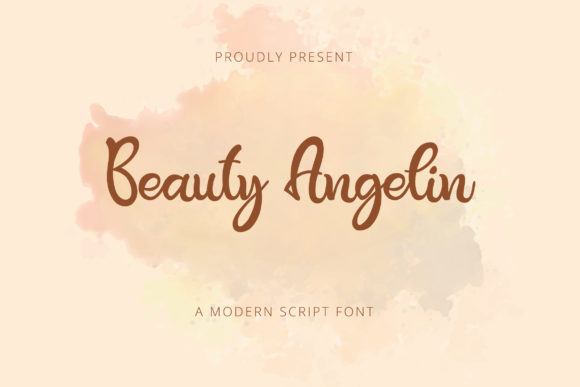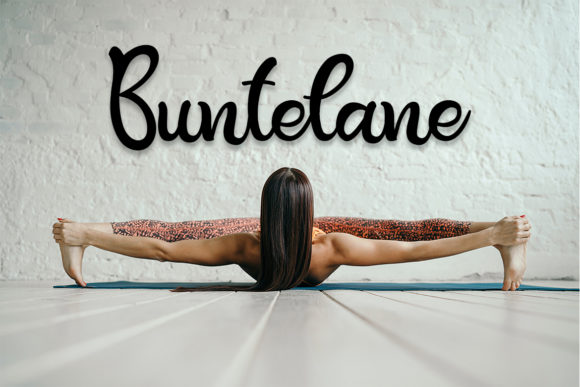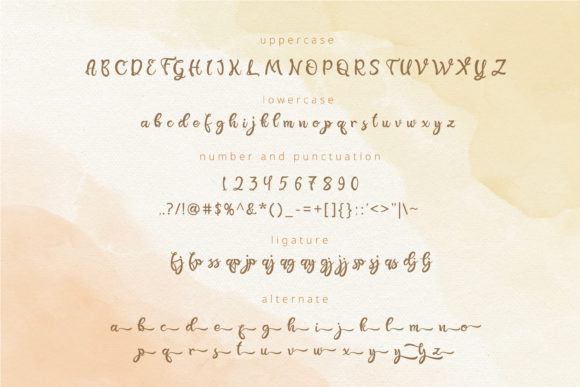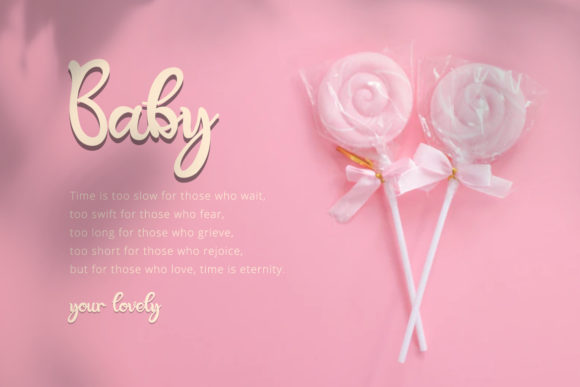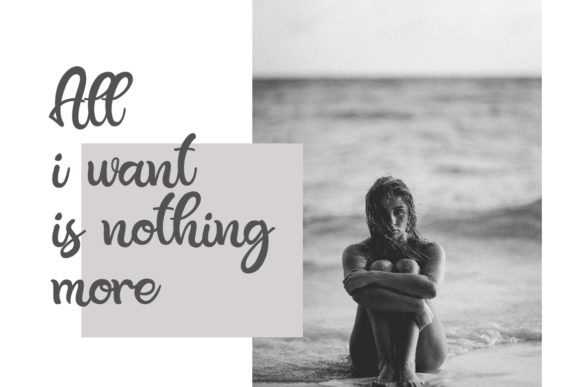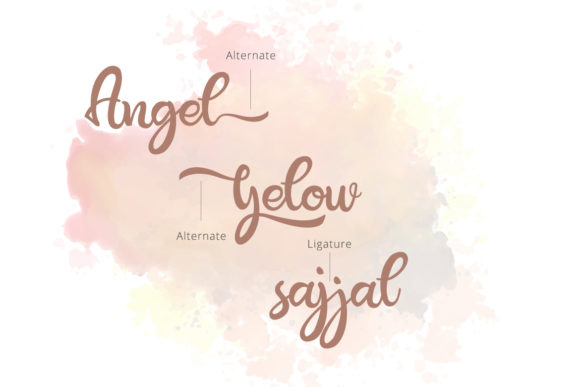
About Beauty Angelin Font
Beauty Angelin is a meticulously handcrafted script font that exudes elegance and sophistication. With its graceful and flowing strokes, this font is a perfect choice for a wide range of graphic design projects, adding a touch of beauty and charm to any visual composition.
One of the main strengths of Beauty Angelin is its versatility. Whether you’re working on branding materials, t-shirts, prints, business cards, logos, posters, photography, or quotes, this font seamlessly adapts to various contexts, making it a reliable and go-to choice for any graphic design need.
The handcrafted nature of Beauty Angelin gives it a personal and artisanal touch, setting it apart from standard fonts and lending a unique character to your designs. Each letter is carefully crafted to maintain a harmonious balance between legibility and creativity, ensuring that your messages are conveyed effectively while also leaving a lasting impression on your audience.
Beauty Angelin’s delicate and flowing lines make it a perfect choice for projects that require a sense of grace and refinement. Its timeless appeal adds a touch of classic elegance to your designs, making them stand out in a sea of visual content.
Furthermore, this font’s readability ensures that your message is communicated clearly and effectively, regardless of the design context. Whether used in large headlines or small text, Beauty Angelin remains legible and captivating, making it a versatile and reliable choice for a wide range of projects.
In summary, Beauty Angelin is a handcrafted script font that is suitable for a variety of graphic design projects. Its elegant and flowing strokes, along with its timeless appeal, make it perfect for branding materials, t-shirts, prints, business cards, logos, posters, photography, quotes, and more. Embrace the beauty and charm of Beauty Angelin and elevate your graphic designs to new heights of sophistication and allure.